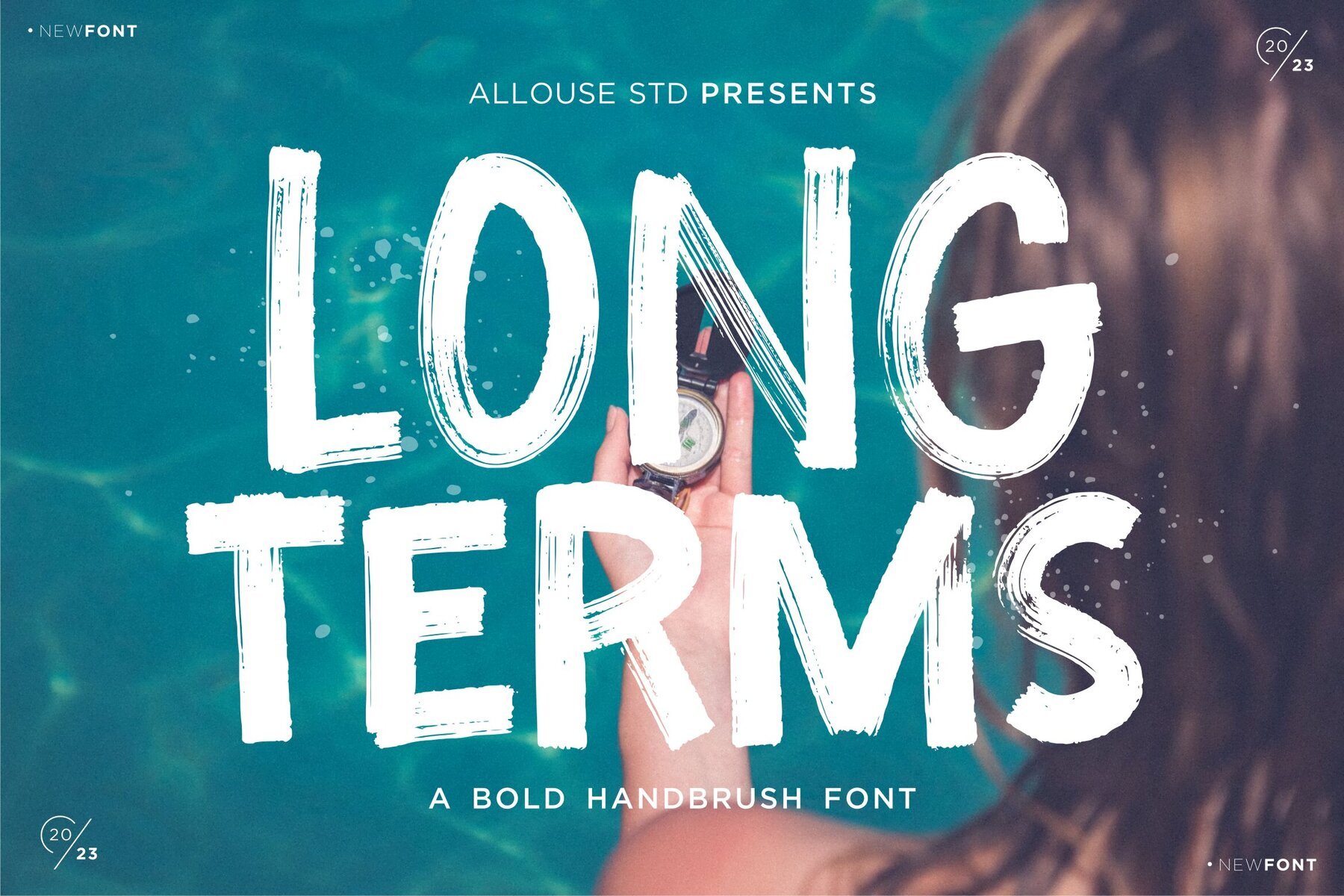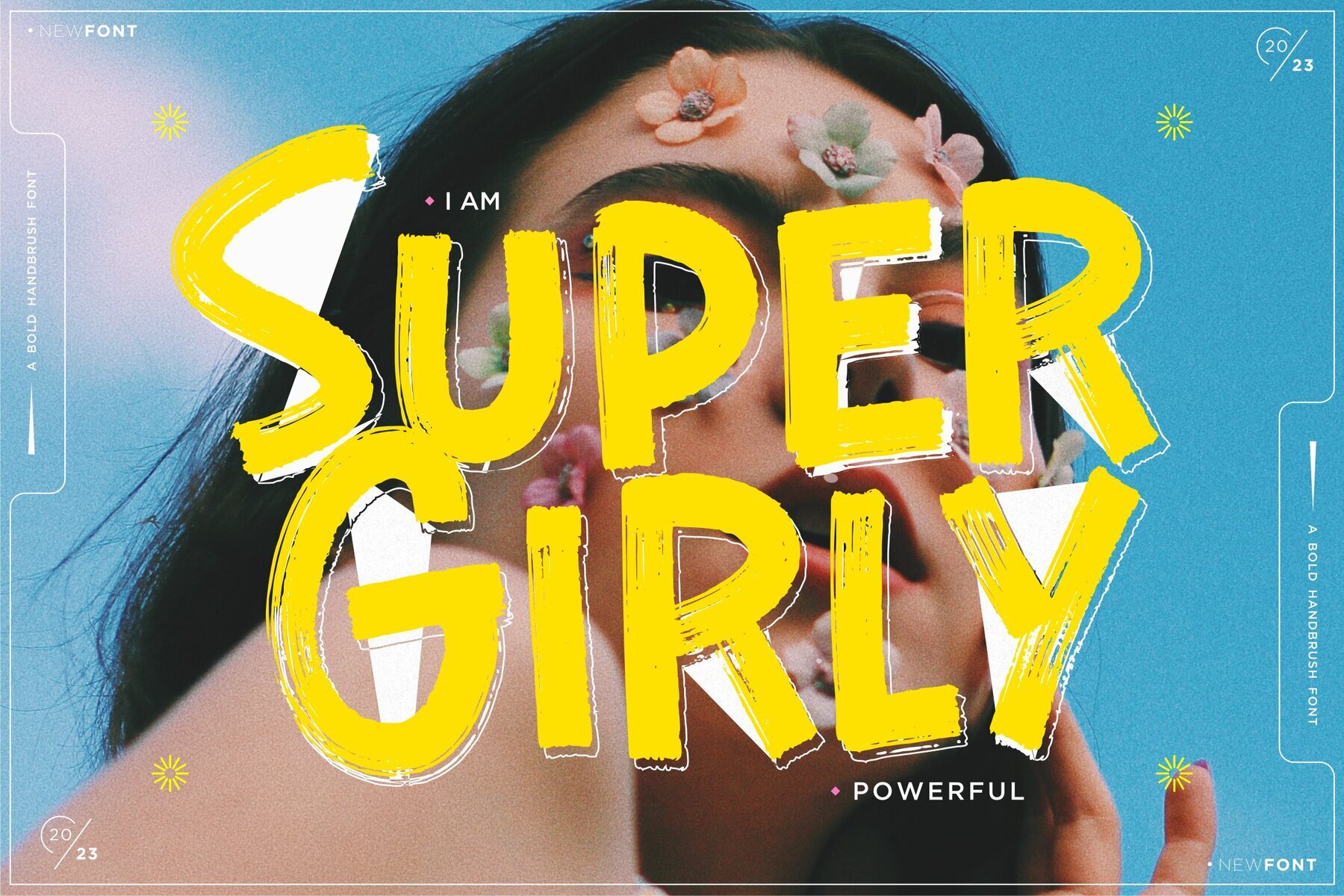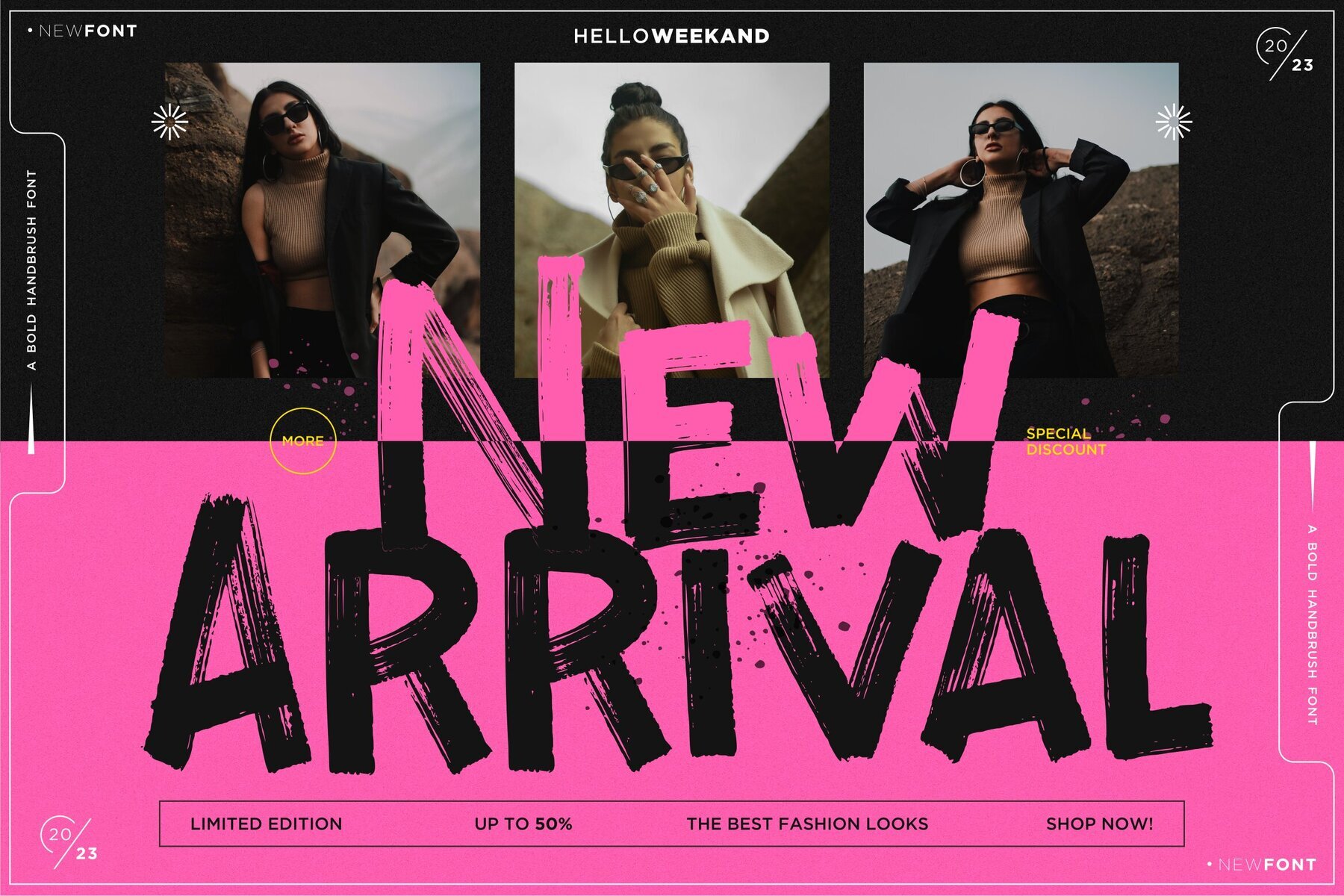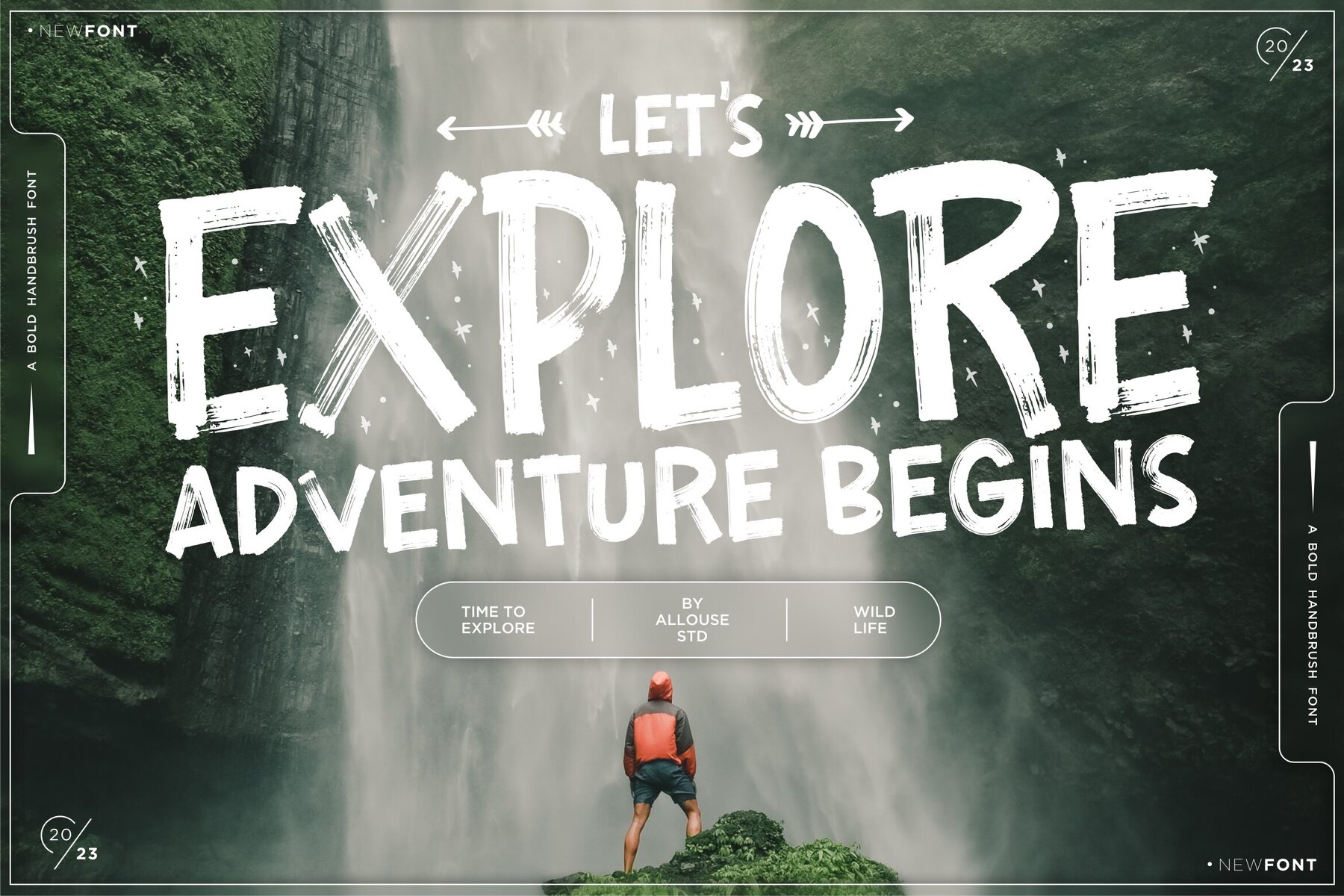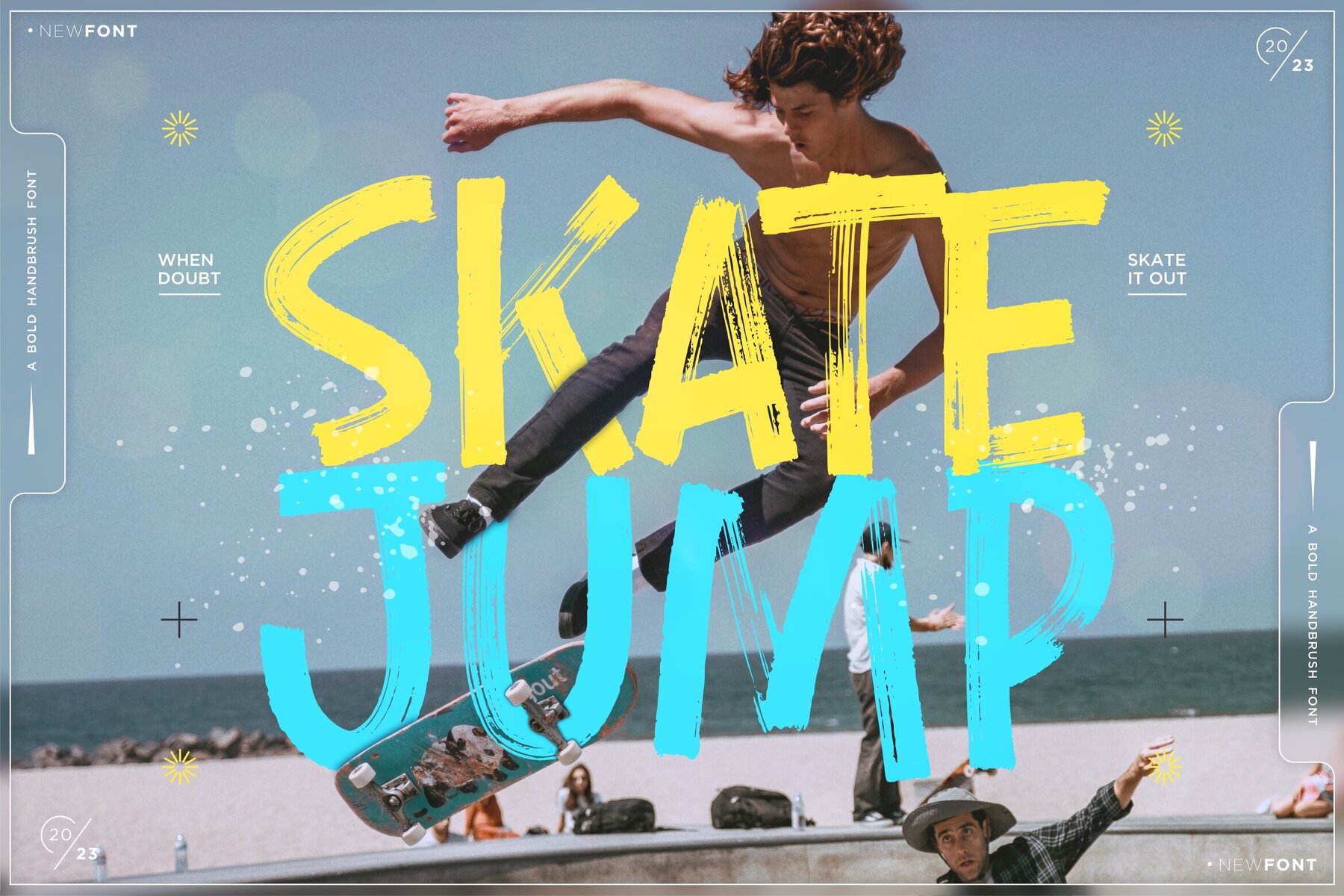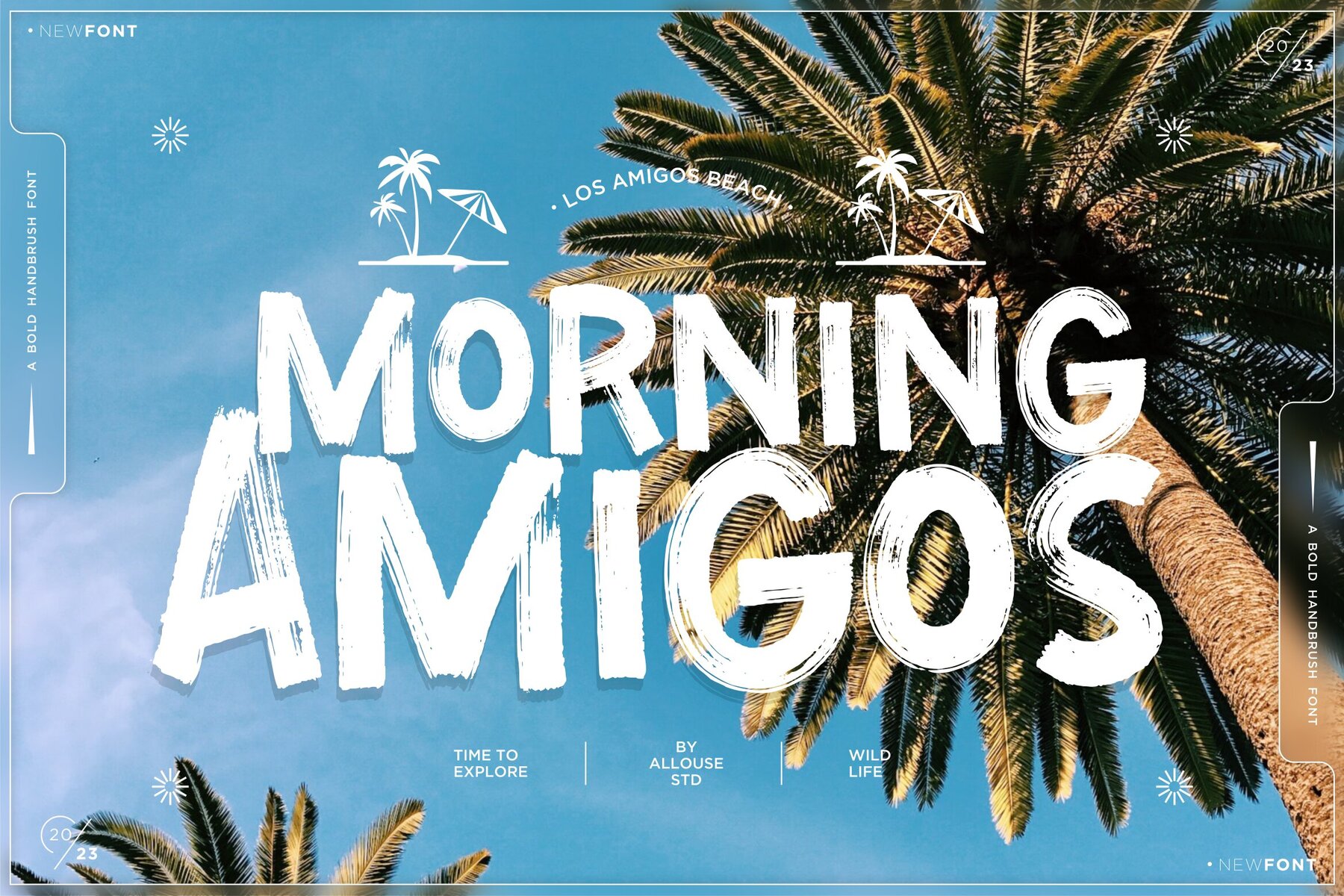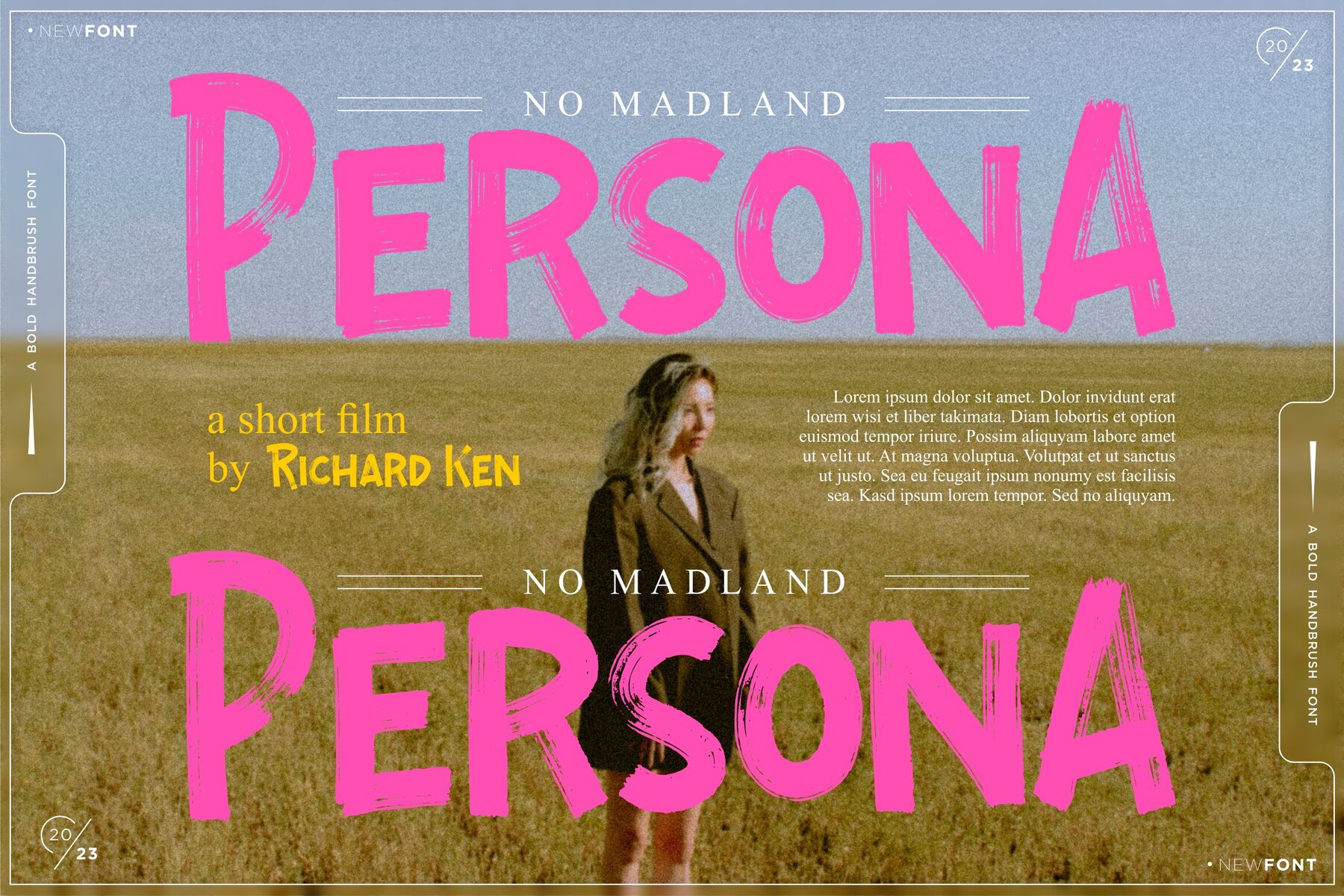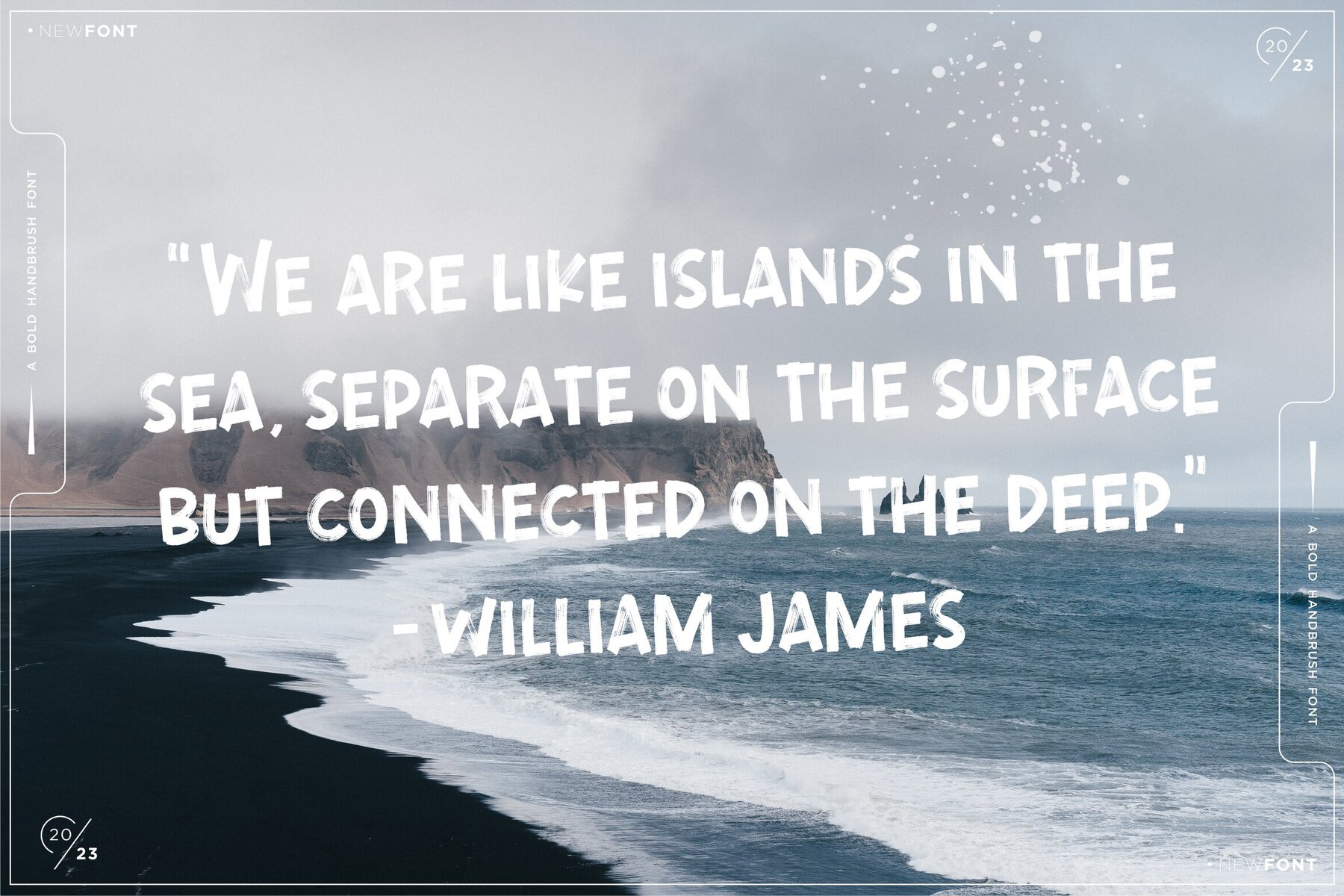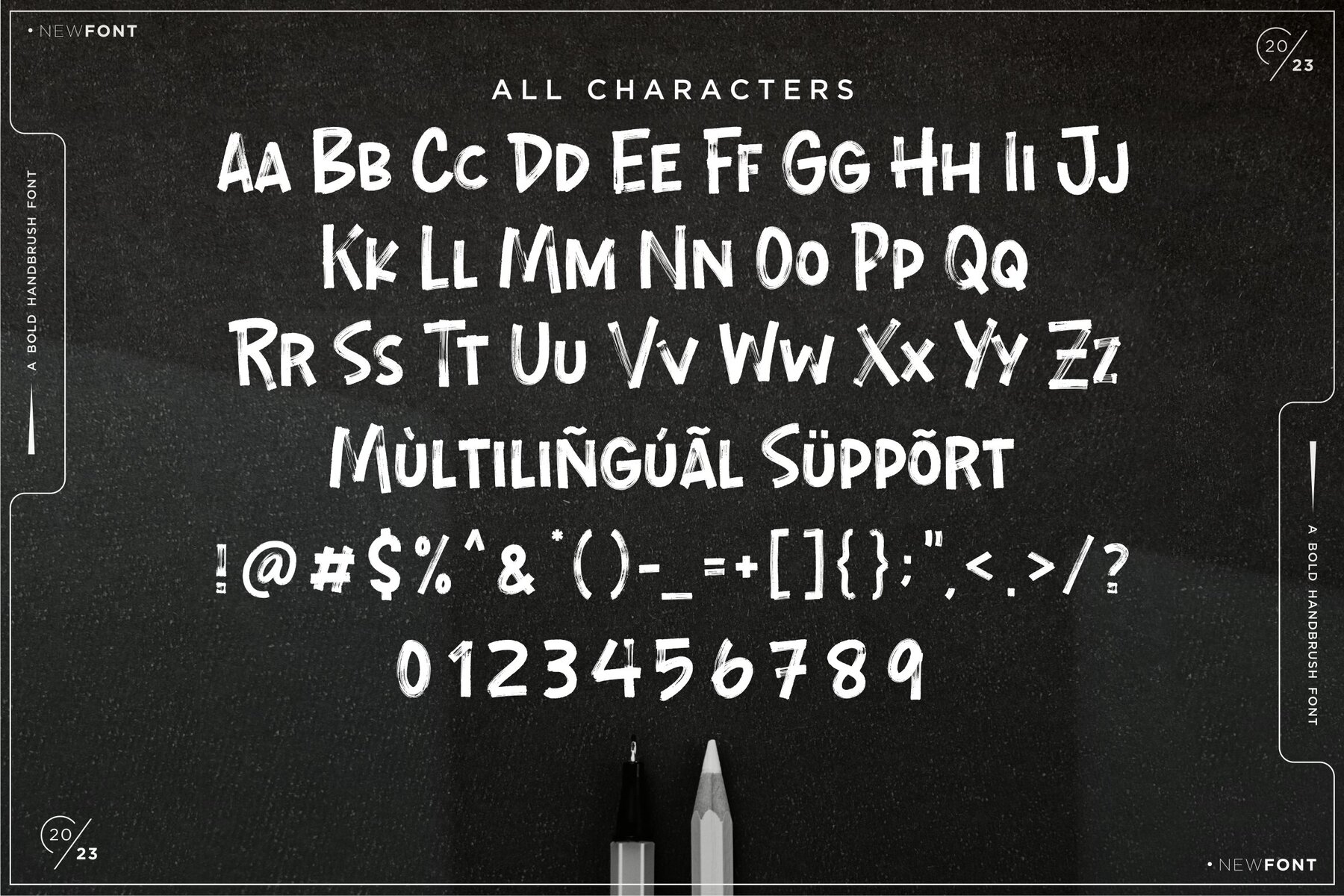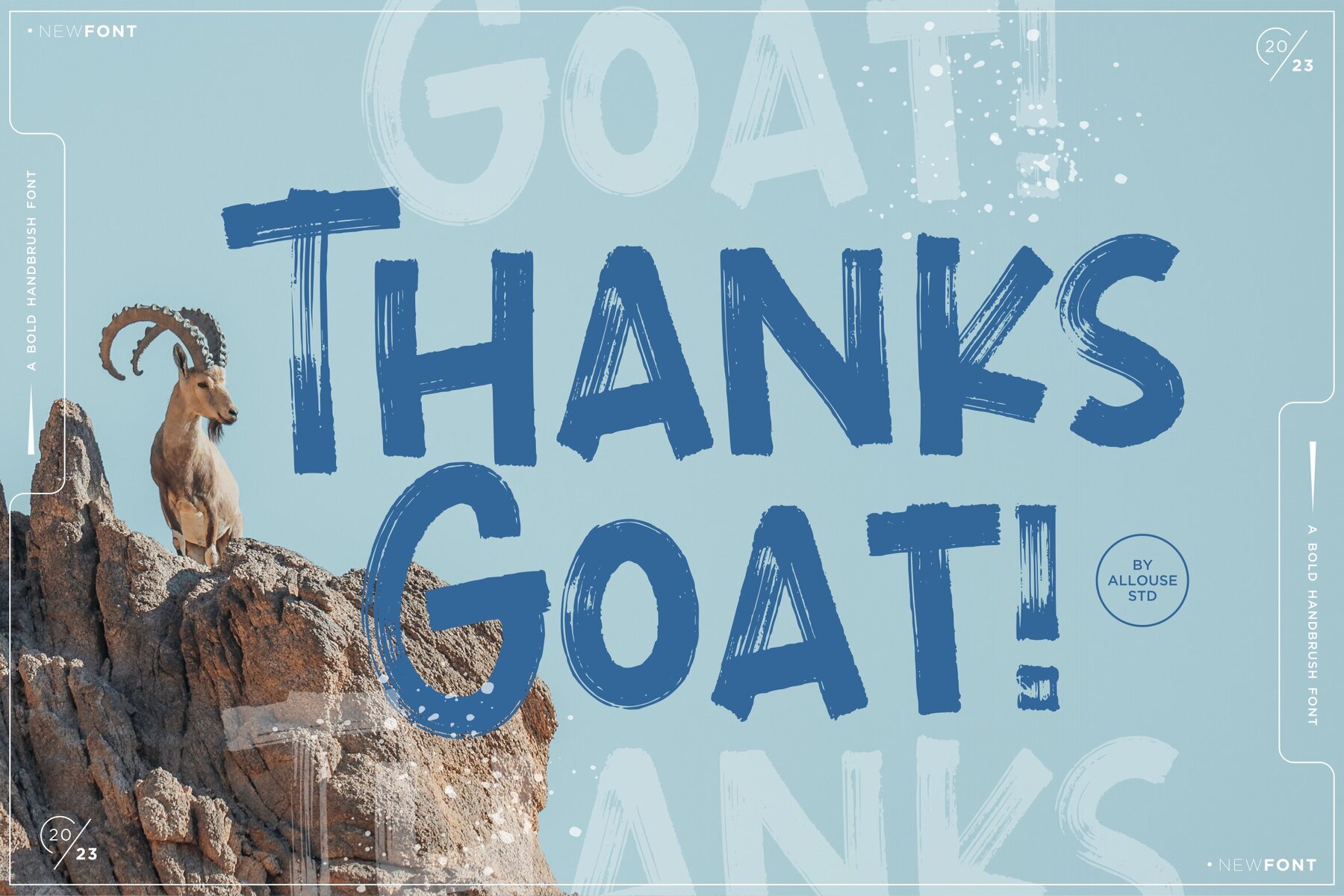
Longterms Font
Longterms Regular
"Longterms" by Allouse.Studio is a bold handbrush font that injects personality into your projects. This font is ideal for product packaging, branding endeavors, magazines, and social media graphics. It also adds a creative flair to wedding invitations or any expressive textual needs.Longterms: Bold Handbrush Font for Dynamic Design
Distinct Features